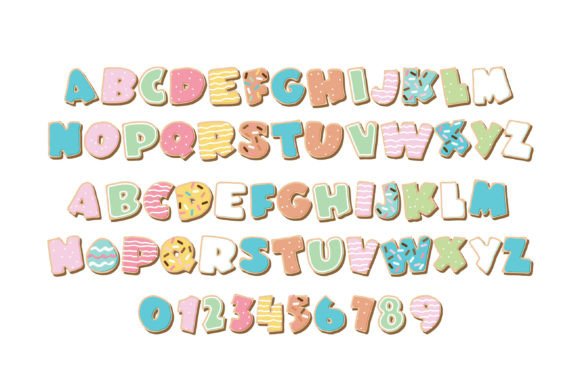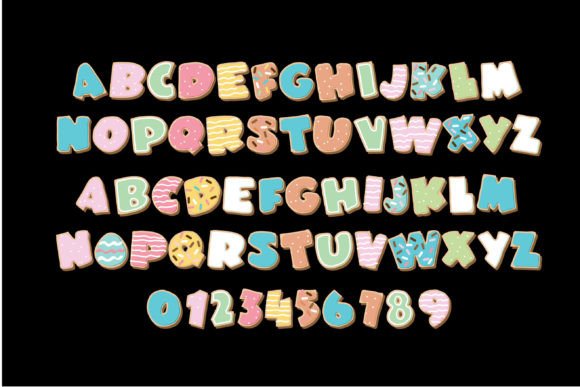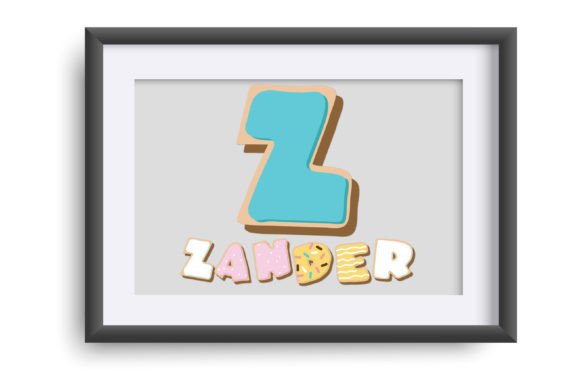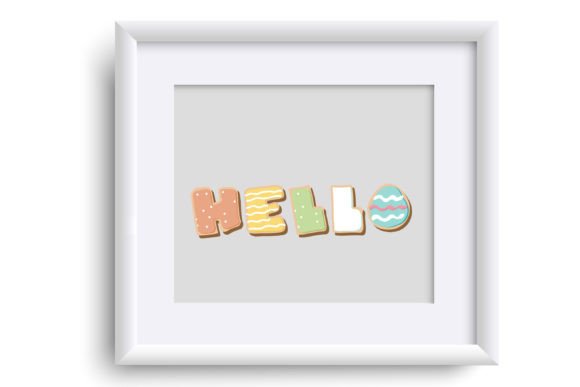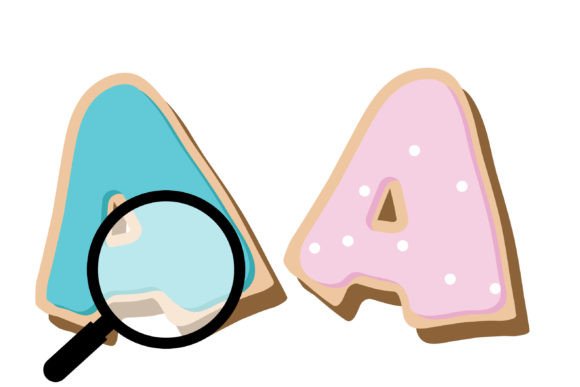
Easter Cookies Font: A Deliciously Festive Addition to Your Easter Projects
As the Easter season approaches, designers and crafters are on the lookout for fresh and exciting ways to add a touch of festive flair to their projects. If you’re searching for a font that embodies the whimsy and charm of Easter, look no further than the Easter Cookies font! This delightful font is bursting with colorful, adorable, and whimsical designs that are sure to make your Easter-themed creations stand out.
What is Easter Cookies Font?
Easter Cookies is a vibrant and beautiful Easter-themed color font that brings the magic of the season to life. Each letter in this charming font features an adorable design, complete with pastel colors, cute bunnies, and Easter eggs. Whether you’re creating cards, invitations, or other Easter-themed projects, this font is the perfect way to add a dash of festive fun and personality.
Key Features of Easter Cookies Font
- Colorful and Whimsical Design: Each letter in the Easter Cookies font is meticulously designed with a focus on bright, pastel colors and adorable Easter-themed illustrations, including bunnies, eggs, and more.
- Easter-themed Illustrations: The font features a range of cute and playful Easter-themed illustrations, making it perfect for creating festive and engaging projects.
- Perfect for Various Projects: From greeting cards and invitations to social media graphics and more, the Easter Cookies font is versatile and can be used for a wide range of Easter-themed projects.
How to Use Easter Cookies Font in Your Projects
Incorporating the Easter Cookies font into your Easter projects is a breeze. Here are a few ideas to get you started:
- Easter Cards: Create personalized Easter cards for friends and family, complete with colorful, whimsical designs and heartfelt messages.
- Invitations: Design festive Easter invitations for parties, egg hunts, or other seasonal events, and make sure to include all the essential details in style.
- Social Media Graphics: Add a touch of Easter cheer to your social media posts with eye-catching graphics featuring the Easter Cookies font.
- Crafting Projects: Use the Easter Cookies font to add custom lettering and titles to your Easter-themed crafting projects, such as scrapbooking, DIY decorations, and more.
Tips for Getting the Most Out of Easter Cookies Font
To make the most of this delightful font, consider the following tips:
- Experiment with Colors: While the font comes with a pre-designed color scheme, don’t be afraid to experiment with different colors to match your project’s specific needs.
- Mix and Match: Combine the Easter Cookies font with other fonts or graphics to create unique and visually appealing designs.
- Pay Attention to Details: Take the time to carefully review your designs, ensuring that all elements, including text and graphics, are balanced and visually appealing.
The Easter Cookies font is a fantastic addition to any designer’s or crafter’s toolkit, offering a fun, colorful, and whimsical way to add Easter cheer to a wide range of projects. With its adorable illustrations, easy-to-use design, and versatility, this font is sure to become a go-to choice for Easter-themed creations. So why wait? Dive into the world of Easter Cookies font and start creating your own delightful Easter projects today!
Whether you’re a seasoned designer or a crafting enthusiast, the Easter Cookies font is sure to inspire your creativity and help you create memorable Easter-themed projects that will delight friends, family, and followers alike.